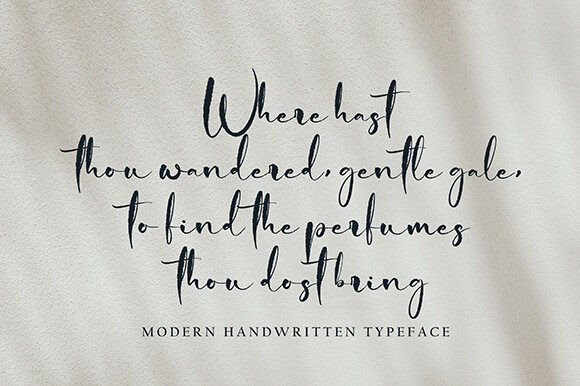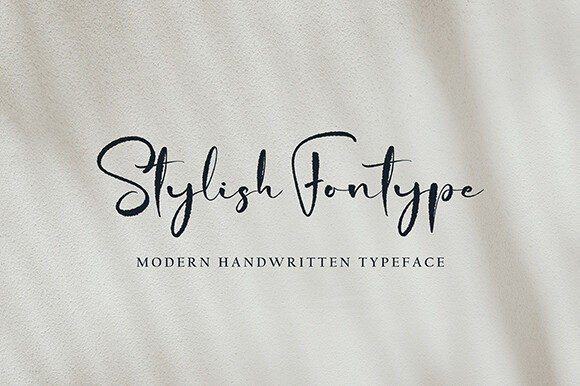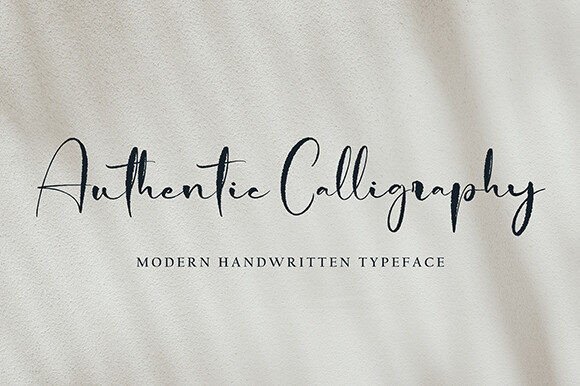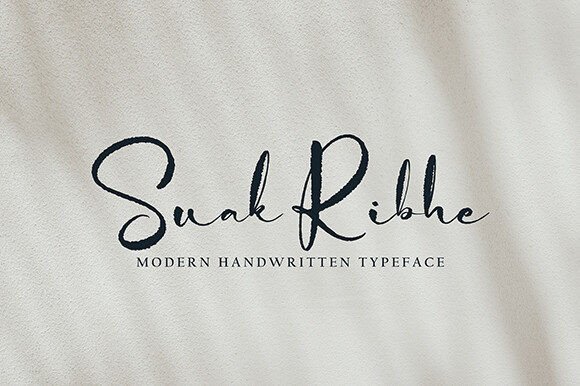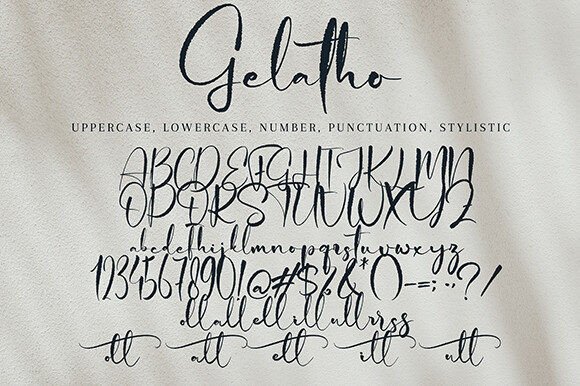
The Magic of Gelatho Font: Elevate Your Designs with Elegance
I’ll never forget the time I was working on a DIY project, pouring my heart and soul into creating the perfect Instagram post. I had the design concept, the colors, and the graphics, but something was missing – the right font. That’s when I stumbled upon Gelatho, a magical script font that added a touch of elegance to my project. In this article, I’ll share my experience with Gelatho, its features, and how to make the most of this beautiful font.
A Personal Review of Gelatho Font
As a designer, I’m always on the lookout for fonts that can elevate my projects. Gelatho has become a favorite, and here’s why:
- ✨ Elegant and sophisticated: Gelatho adds a touch of luxury to any design.
- ✅ Highly versatile: Suitable for Instagram posts, calligraphy scripts, DIY projects, and more.
- 💫 Unique character set: Includes a range of glyphs, stylistic alternates, and OpenType features.
However, no font is perfect, and Gelatho has a few quirks:
- ⚠️ Limited use in very formal or traditional designs: Gelatho’s script style might not be suitable for every project.
- 🤔 Can be overwhelming: With so many glyphs and alternates, it may take time to get familiar with the font.
The Story Behind Gelatho Font
According to its creators, Gelatho was inspired by traditional calligraphy and modern script fonts. The goal was to create a font that would add a touch of elegance and sophistication to any design. With its unique character set and OpenType features, Gelatho has become a favorite among designers and crafters.
| Font Name | Gelatho Font |
| Author | Pineungtype & Missinklab |
| What is Gelatho font best used for? | Gelatho is versatile and can be used for Instagram posts, calligraphy scripts, DIY projects, and more. |